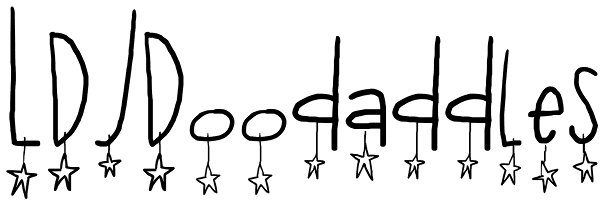
LDJ Doodaddles
The letters of this TrueType font are decked out with holiday star ornaments for a festive and slightly quirky look. Your Christmas messages will sparkle and shine. Try it on your annual family newsletter or as a title for Christmas eve scrapbook...